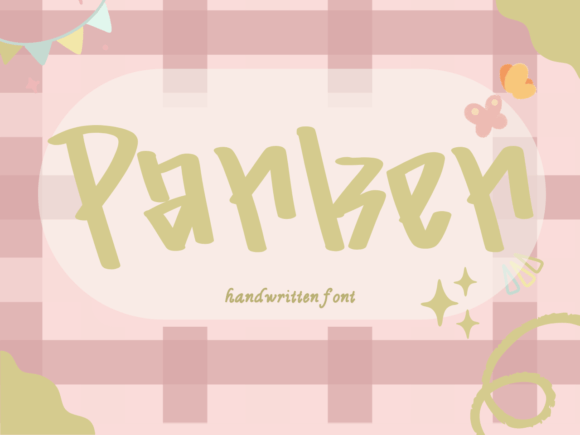
Introducing Parker Font: The Charming and Quirky Handwritten Font That Will Add a Touch of Joy to Your Designs
In the realm of typography, there lies a font that captivates hearts with its playful personality and charming imperfections – Parker Font. This enchanting handwritten font, crafted by the ingenious Pukka De, is a delightful addition to any designer's toolkit, promising to infuse your creative projects with an irresistible touch of whimsy and joy.
Parker Font's playful nature makes it the ideal choice for adding a personal touch to your designs. Its unique, loopy strokes and charming irregularities mimic the natural flow of handwriting, evoking a sense of authenticity and warmth. Whether you're creating eye-catching posters, heartfelt invitations, or captivating social media graphics, Parker Font has the power to transform your words into works of art.
Immerse yourself in the beauty of Parker Font and witness how it effortlessly elevates your designs. Its captivating curves and delightful details demand attention, ensuring that your messages stand out from the crowd. Let Parker Font be your secret weapon to create designs that resonate with your audience, leaving a lasting impression that lingers in their minds.
But Parker Font is more than just a pretty face. It's also incredibly versatile, adapting seamlessly to a wide range of design genres. From whimsical illustrations to professional presentations, Parker Font possesses the versatility to complement any project, adding a touch of elegance and sophistication wherever it's used.